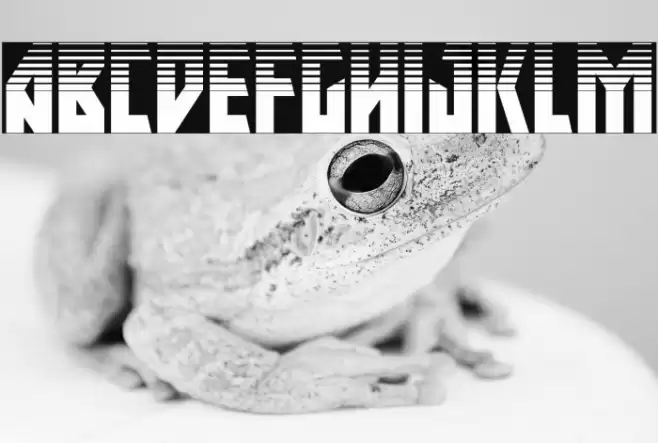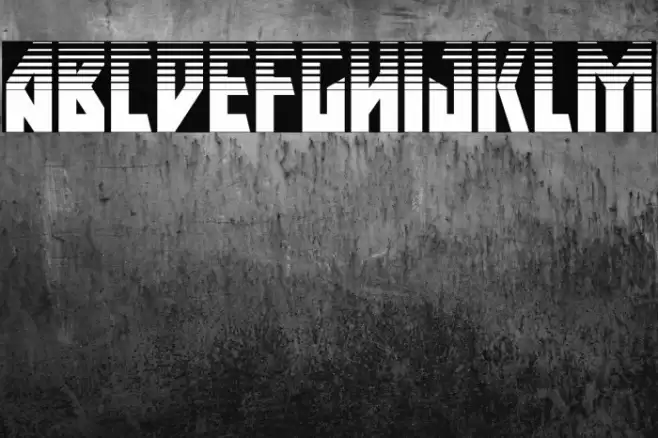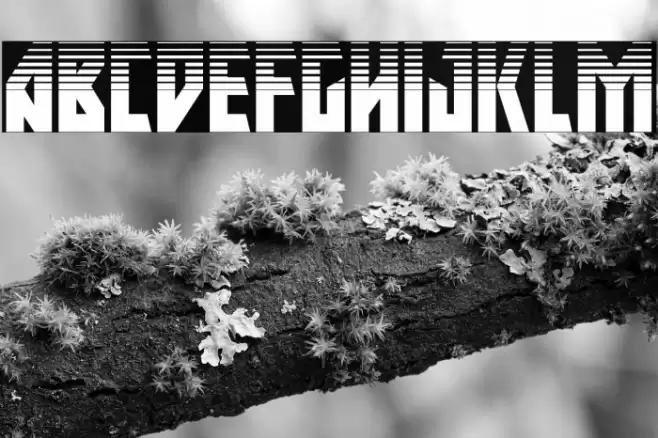
Major Force Halftone Font
Major Force Halftone Description
This font features a bold, geometric design with a distinct halftone effect. Each character is constructed with horizontal lines that create a dynamic, layered appearance. The uppercase letters are particularly striking, with sharp angles and a futuristic aesthetic. The numbers and special characters maintain this bold style, ensuring consistency across all glyphs. The font's unique design makes it ideal for projects that require a modern and edgy look.
A bold, geometric font with a halftone effect and futuristic style from Uncategorized fonts.
- Font: Major Force Halftone
- Proposed Projects: Ideal for posters, album covers, video game graphics, and branding that requires a modern, edgy look.